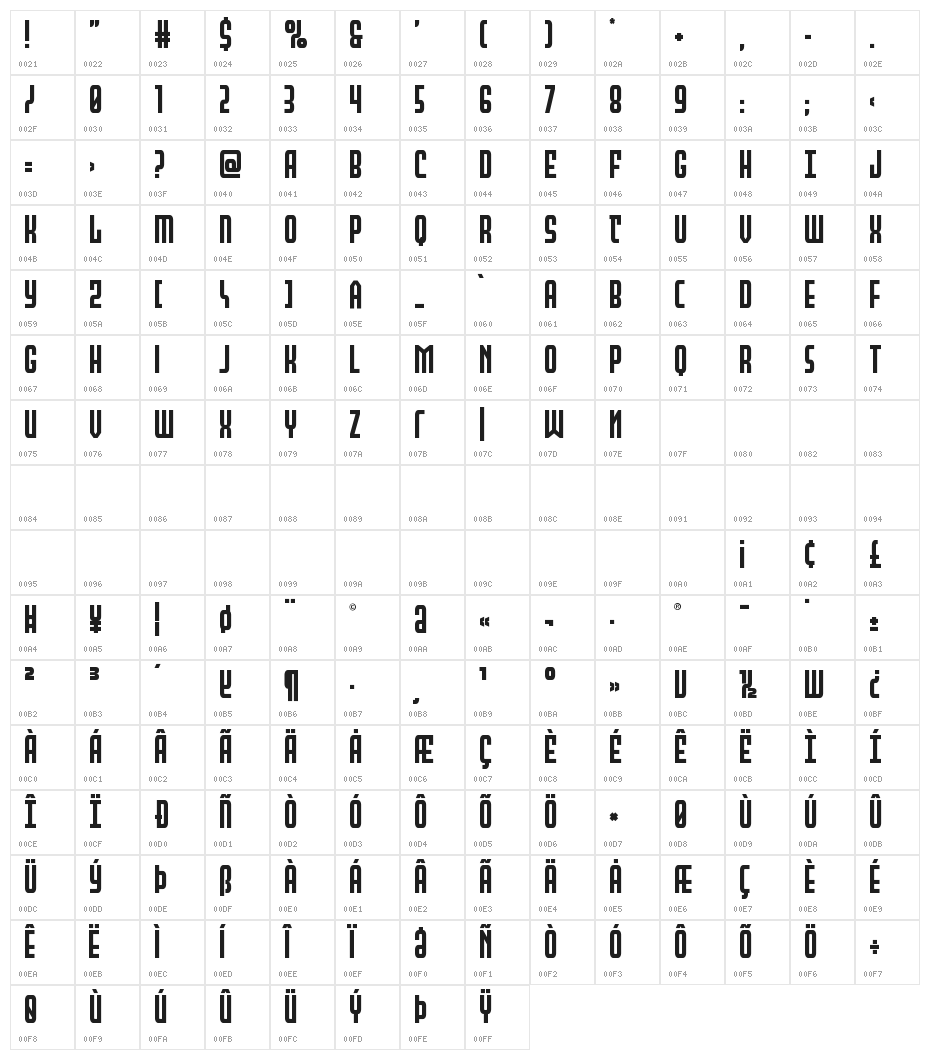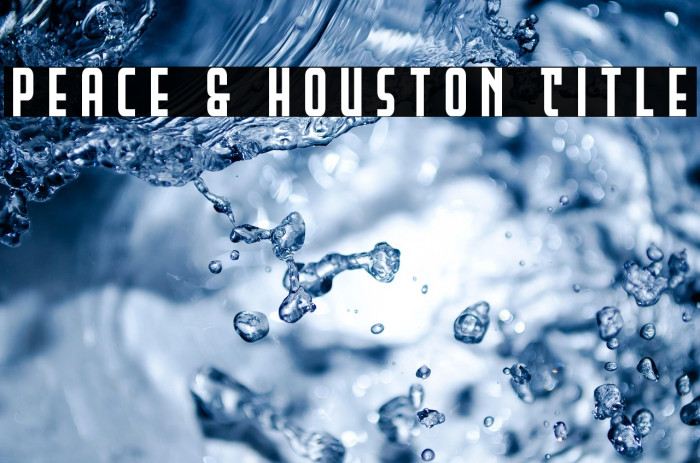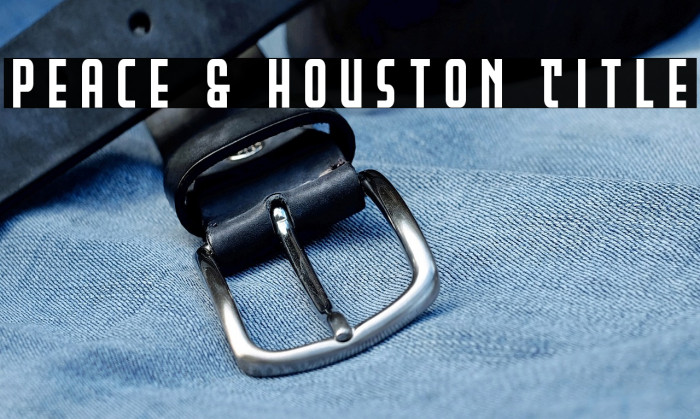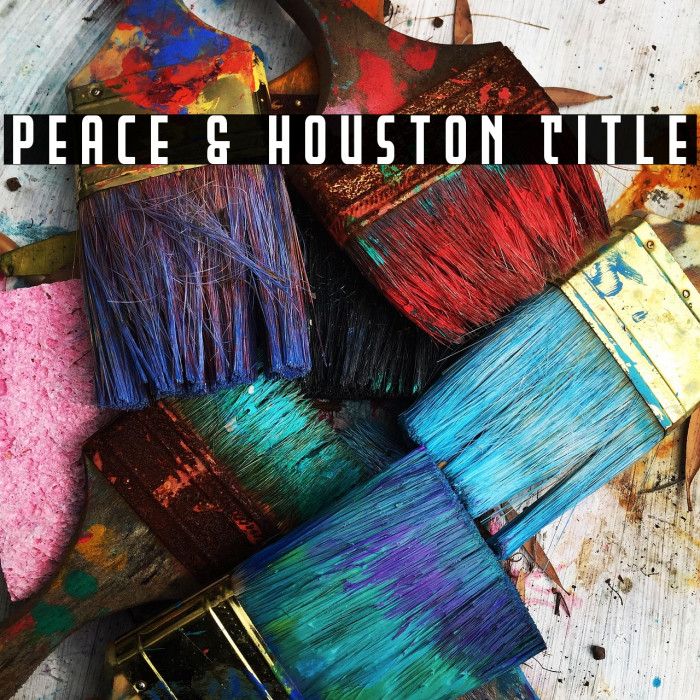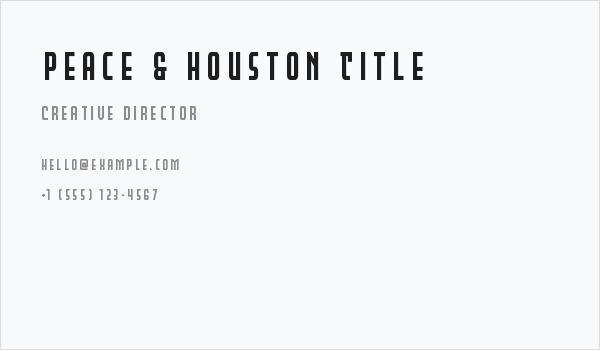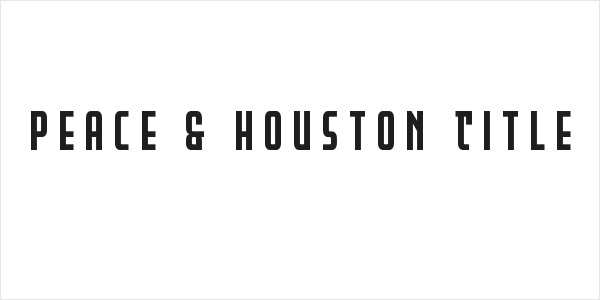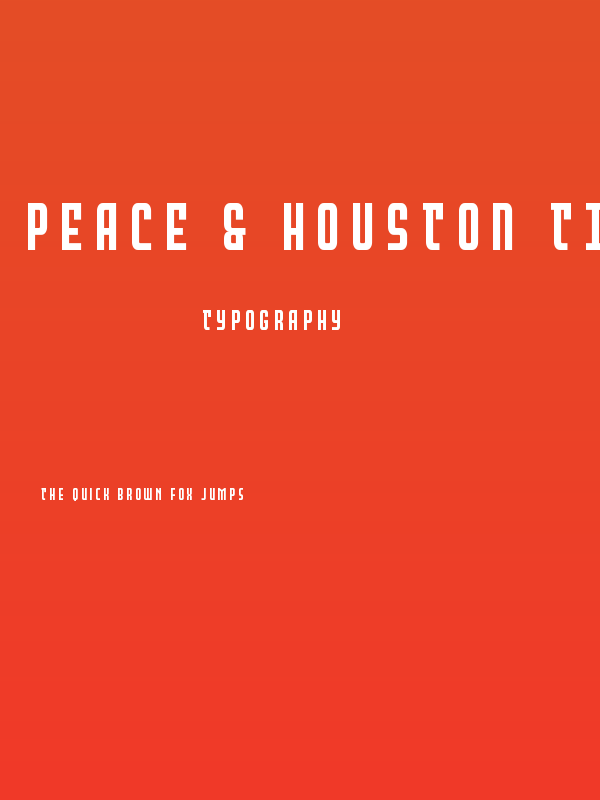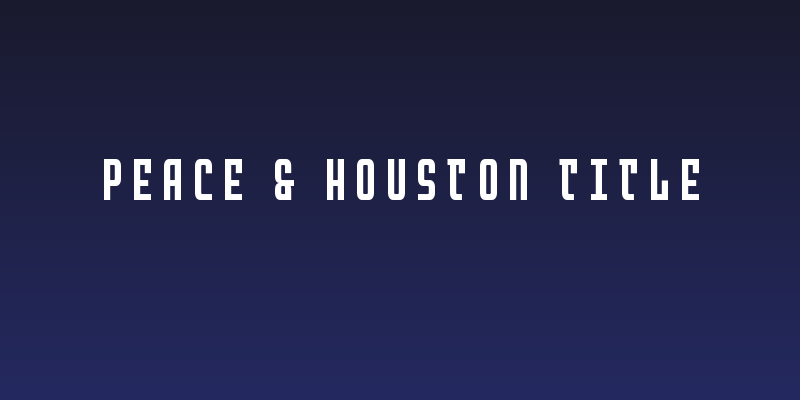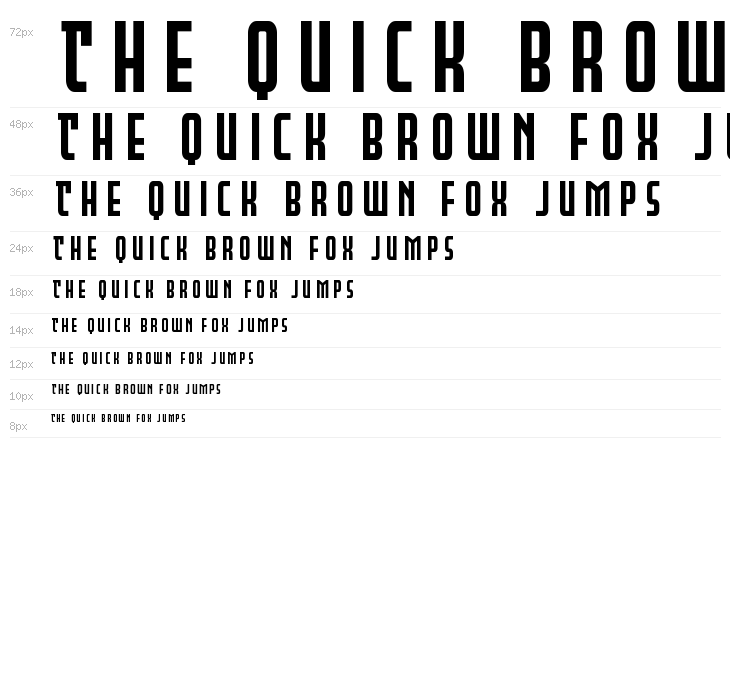
Peace & Houston Title Font
Peace & Houston Title Description
This font features a bold, geometric design with a modern and industrial feel. The characters are uniform in width, creating a monospaced appearance that enhances readability and structure. The uppercase letters are strong and assertive, while the lowercase letters maintain the same boldness, offering a cohesive look. The numbers are clear and distinct, matching the overall style of the alphabet. Special characters are included, maintaining the same bold and structured aesthetic. The font's design is suitable for projects that require a strong visual impact, such as branding, headlines, and signage.
| Use Case | Headlines, Logos, Signage |
| Proposed Projects | Ideal for branding, headlines, signage, and any project requiring a strong visual impact. |